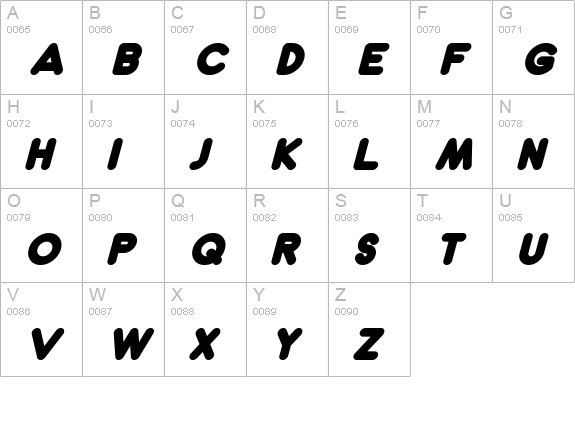
Dunkin Italic Font Details
Dunkin Italic is a distinctive, italic variant in the Dunkin typeface family \xE2\x80\x94 well suited to design and typography projects.
Introducing Dunkin Italic, a font that exudes elegance and sophistication with a touch of playfulness. This beautifully crafted typeface is perfect for those looking to add a touch of flair to their projects, whether it be for branding, advertising, or simply making a statement. Dunkin Italic features smooth and flowing letterforms, showcasing a perfect balance between modernity and classic charm. Its slanted and italicized design adds a dynamic and energetic feel to any text, making it stand out from the crowd. But the best part? Dunkin Italic is freely available to download at FontsMarket.com. Yes, you read that right - free. Now you can elevate your designs without breaking the bank. With just a few clicks, you can have this remarkable font at your fingertips, ready to transform your creative visions into reality. Whether you're a professional designer or a passionate DIY enthusiast, Dunkin Italic is the go-to font that will take your projects to the next level. Its versatility allows it to be used across a wide range of mediums, from print materials to digital platforms, ensuring that your message is delivered with style and impact. So why wait? Visit FontsMarket.com today and unleash the power of Dunkin Italic. With its free availability, you have nothing to lose and everything to gain. Elevate your designs, captivate your audience, and make a lasting impression with Dunkin Italic - the font that sets you apart from the rest.